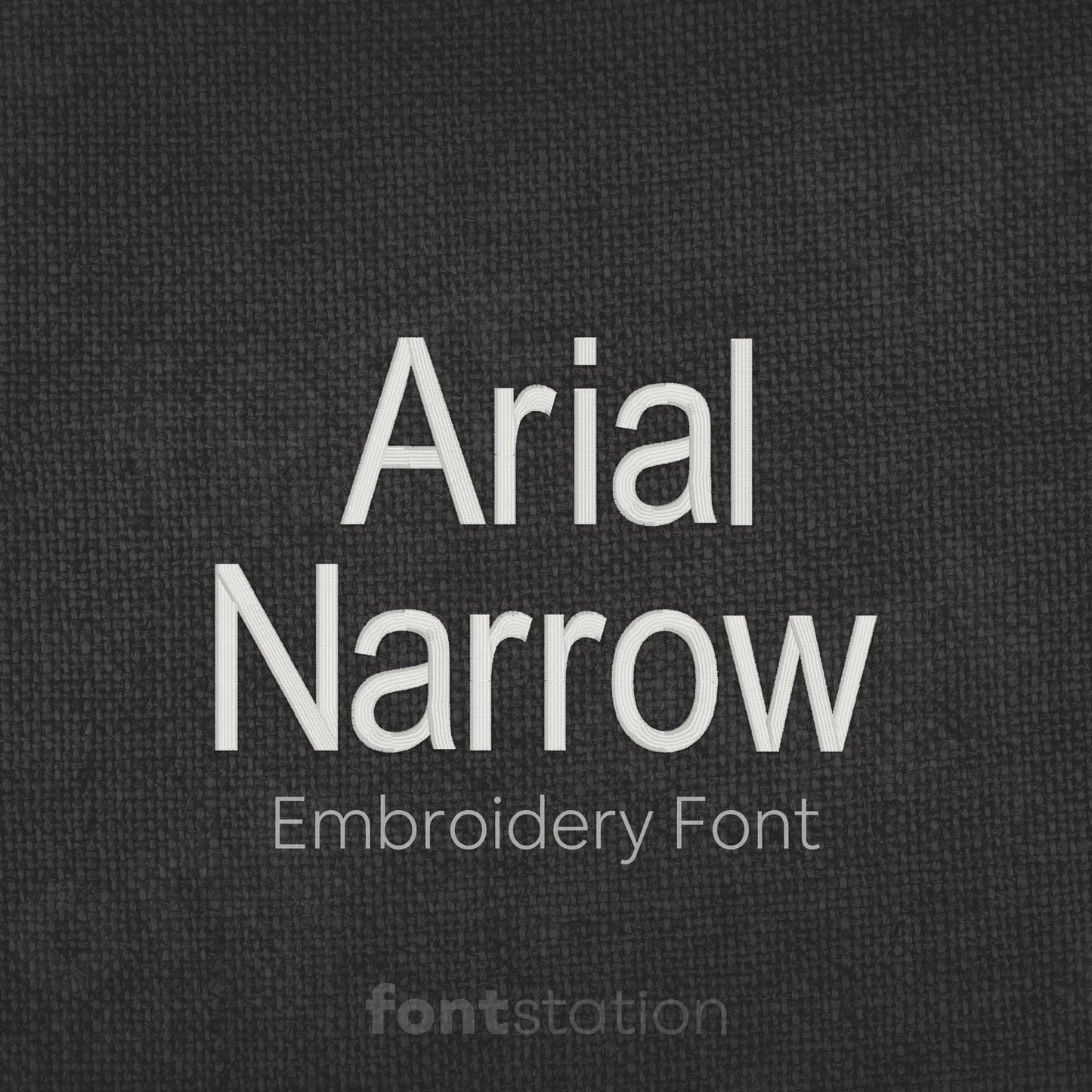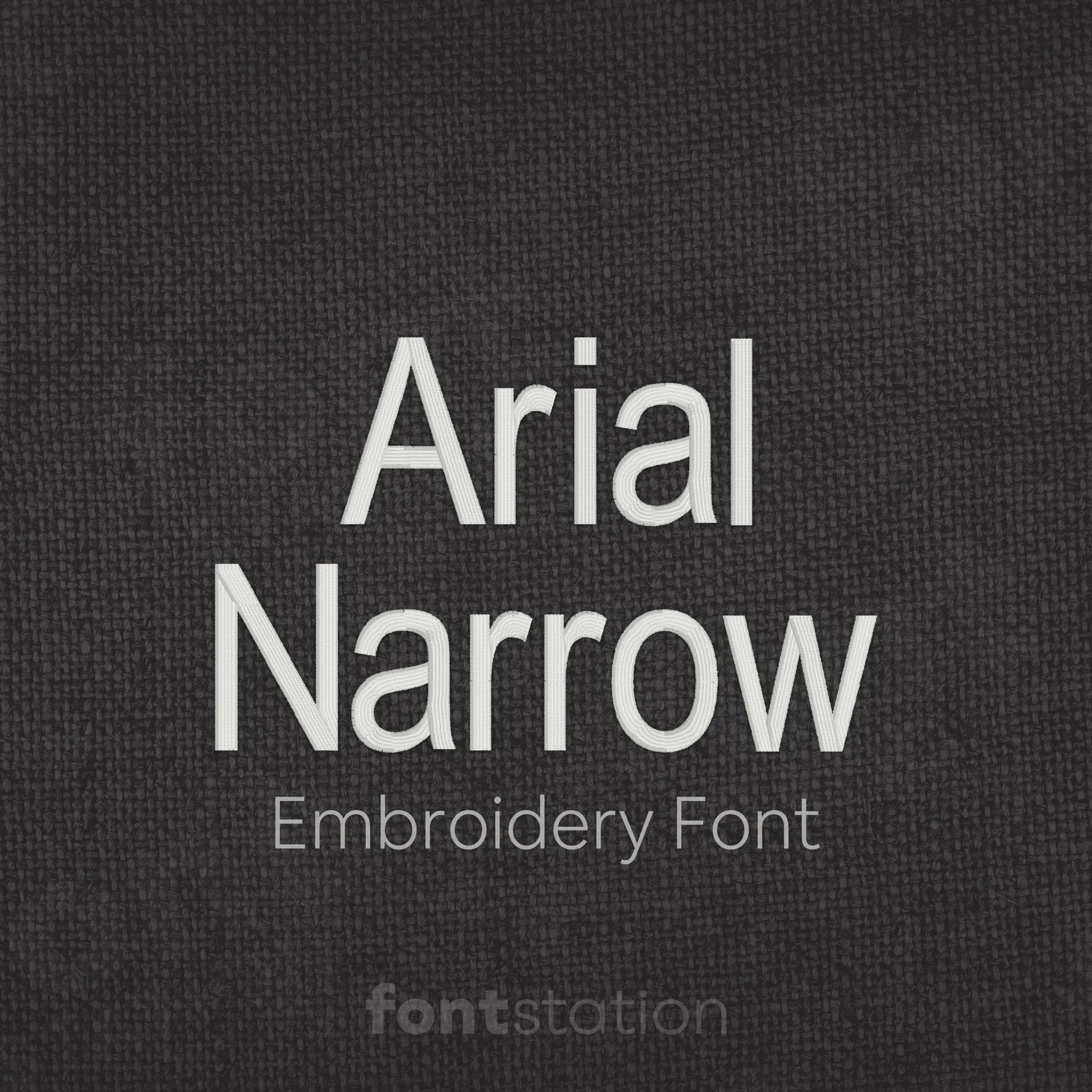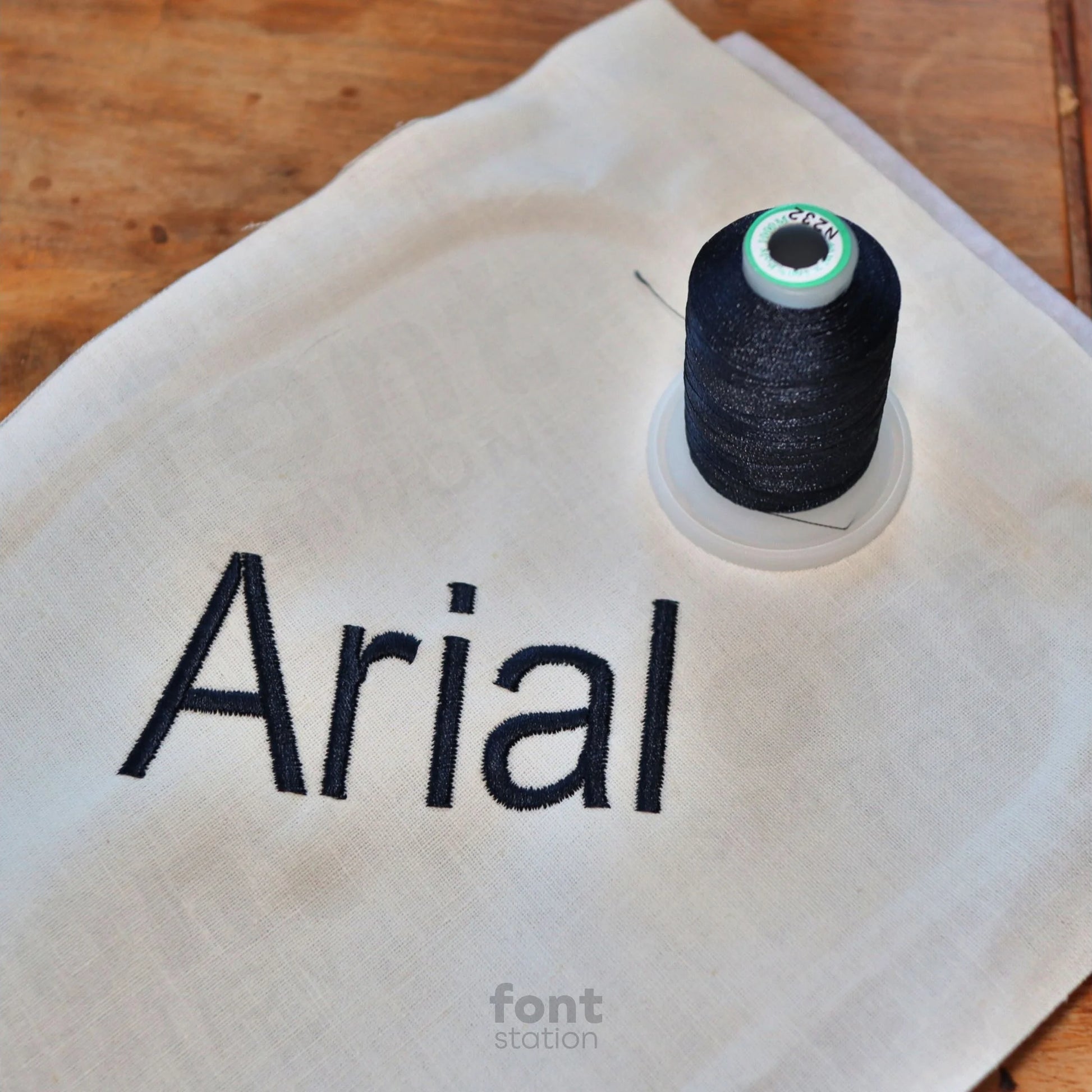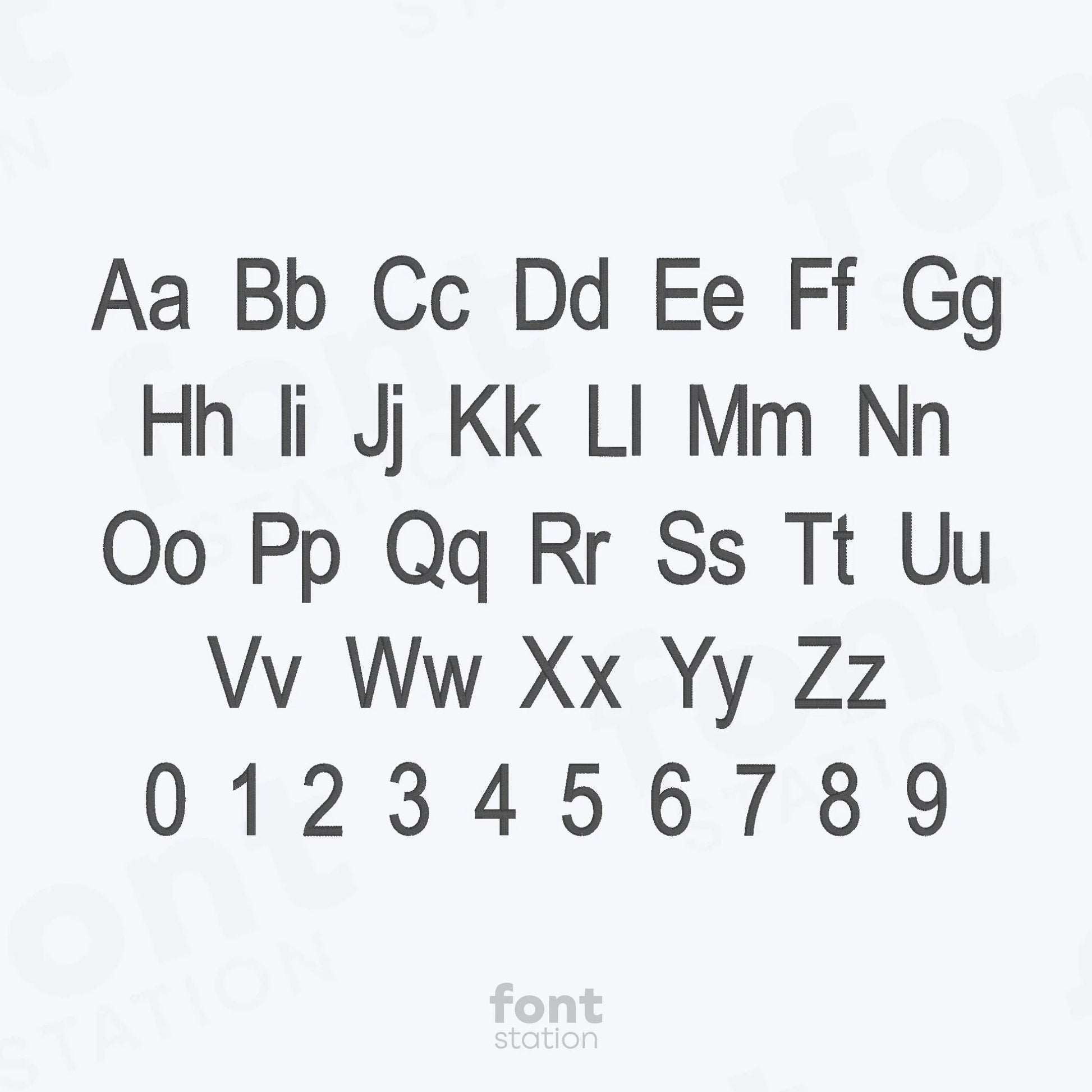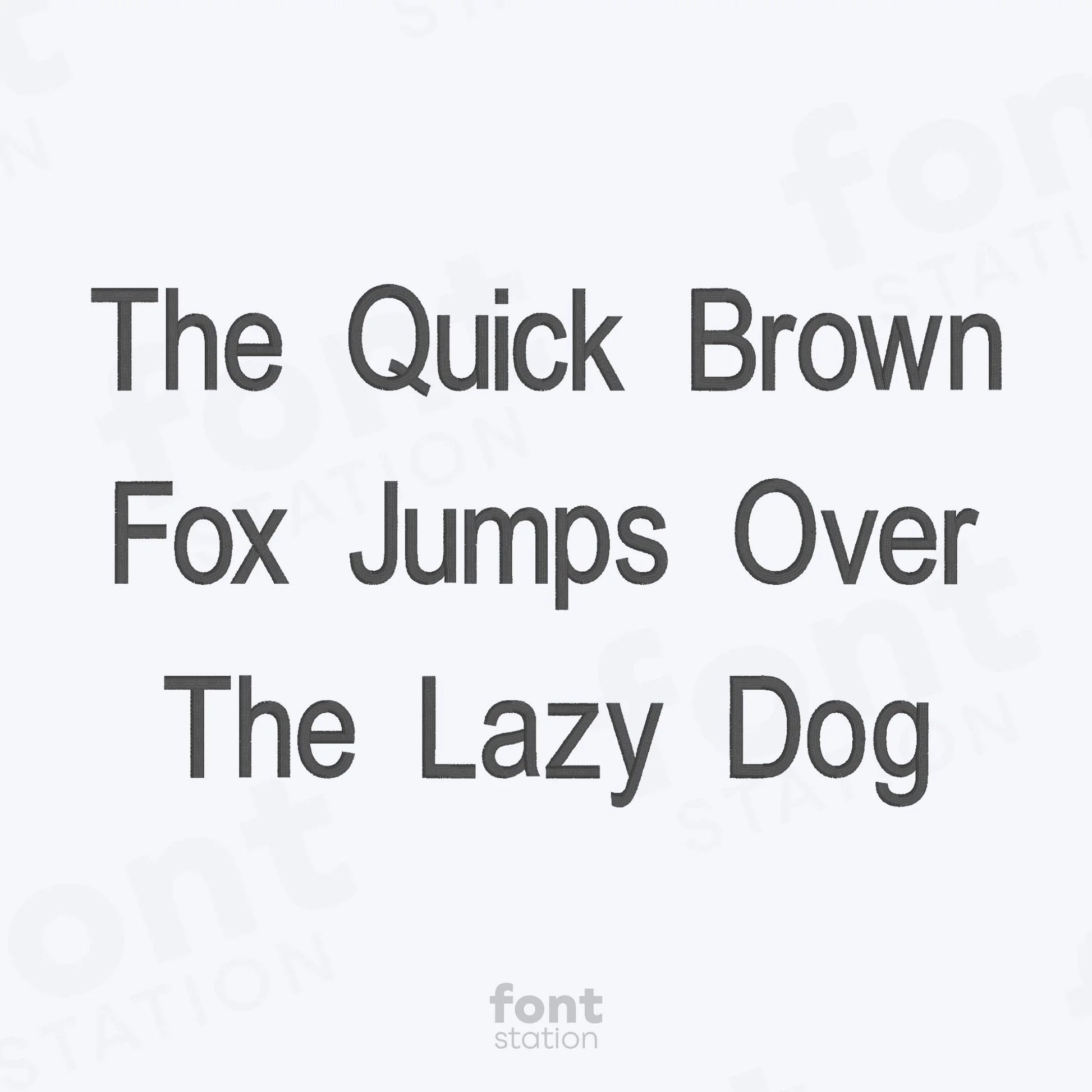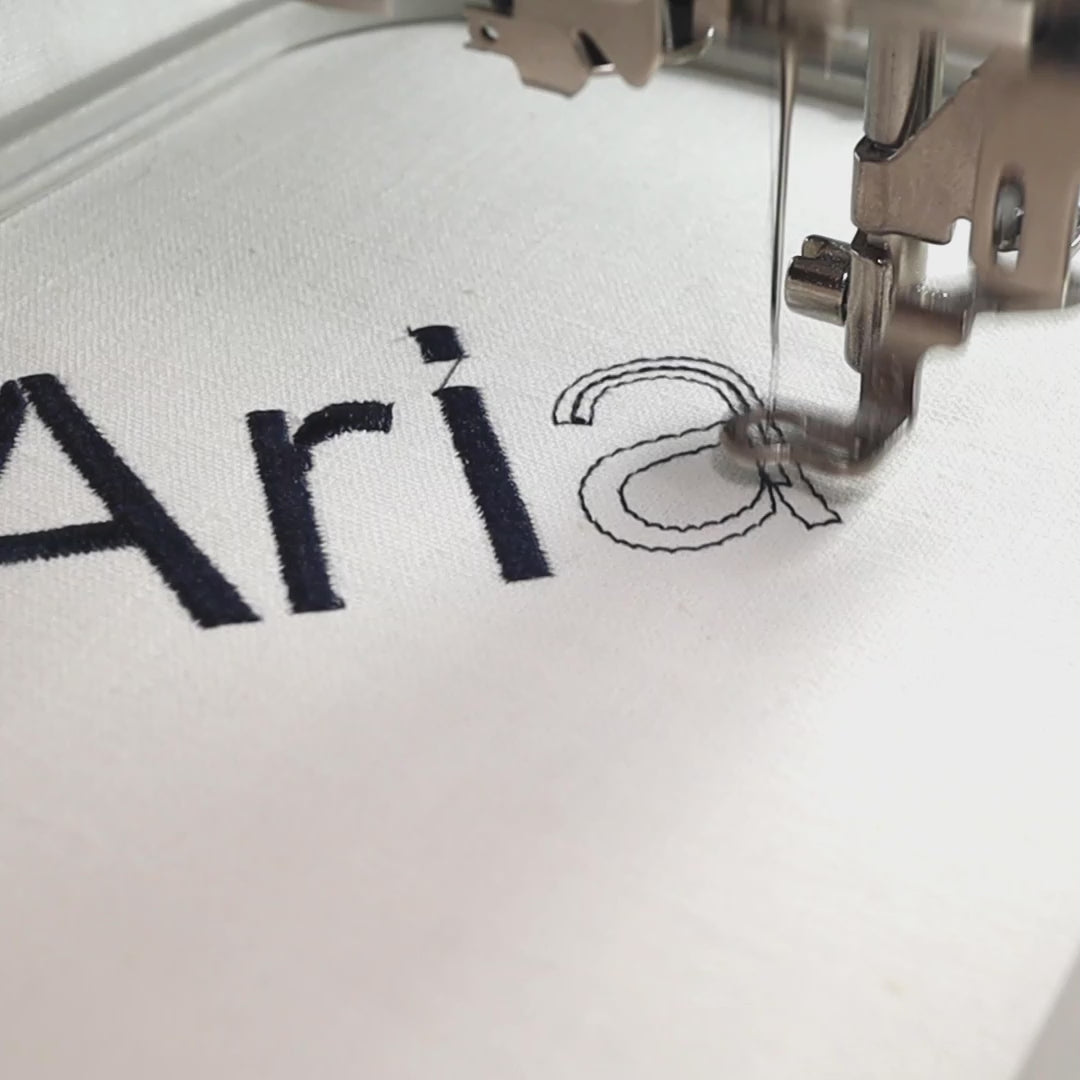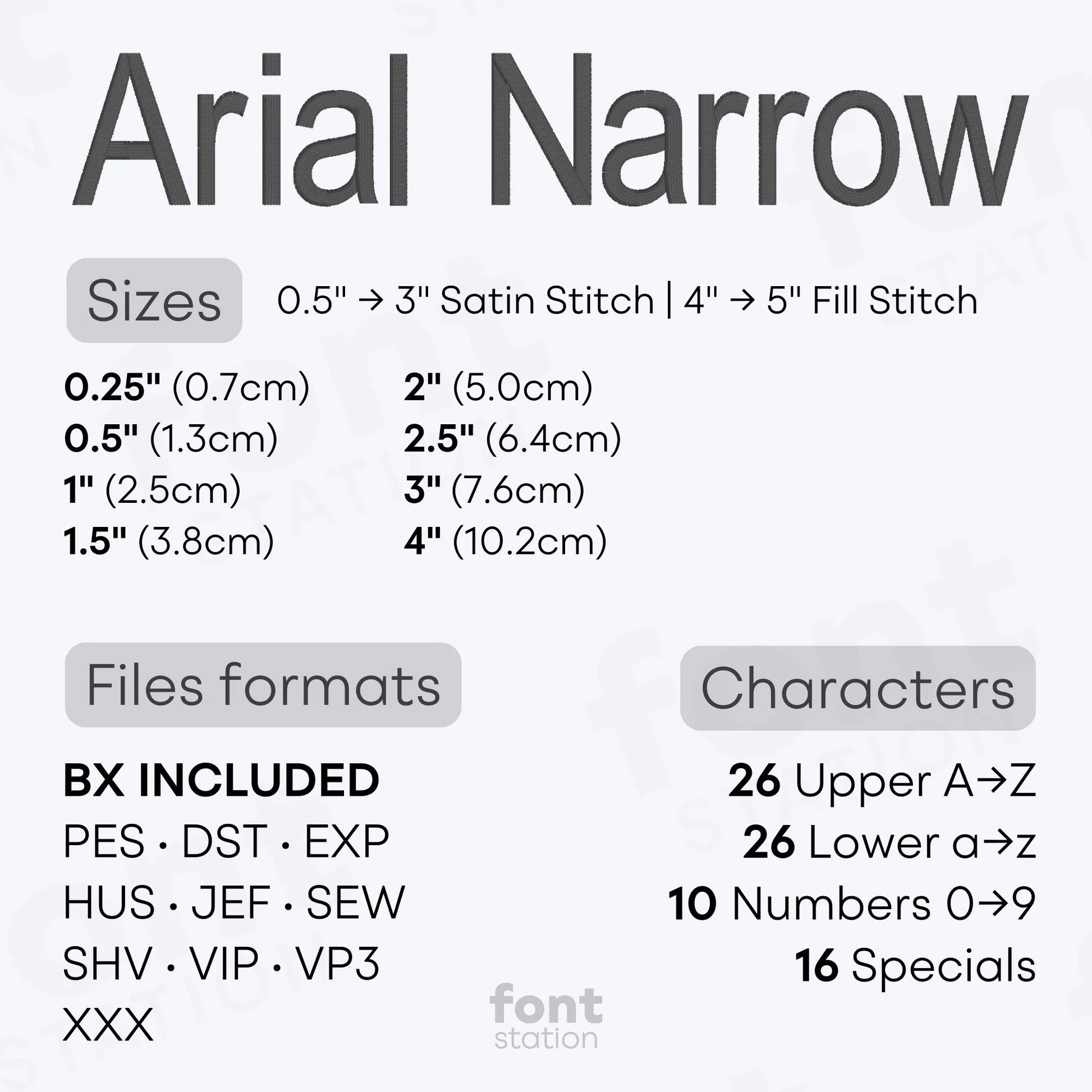
Arial Narrow Embroidery Font
Discover our Arial Narrow embroidery font, a minimalist, condensed sans serif alphabet designed to stitch beautifully on any embroidery machine. Perfect for adding clean, professional letters to your next project or custom designs.
About the Arial Narrow Embroidery Font
Our Arial Narrow embroidery font is a condensed alphabet for clean, modern embroidery projects.
This minimalist embroidery font features a narrow sans serif alphabet that’s perfect for small spaces, monograms, and clean design work. The Arial Narrow embroidery letters are professionally digitized to stitch smoothly on any embroidery machine. Whether you're working on labels, logos, or personalized gifts, these machine-ready letters bring a crisp, compact finish to any project. Available in popular formats including BX, PES, DST, JEF, EXP, VP3, and HUS, this embroidery font ensures compatibility across a wide range of machines.